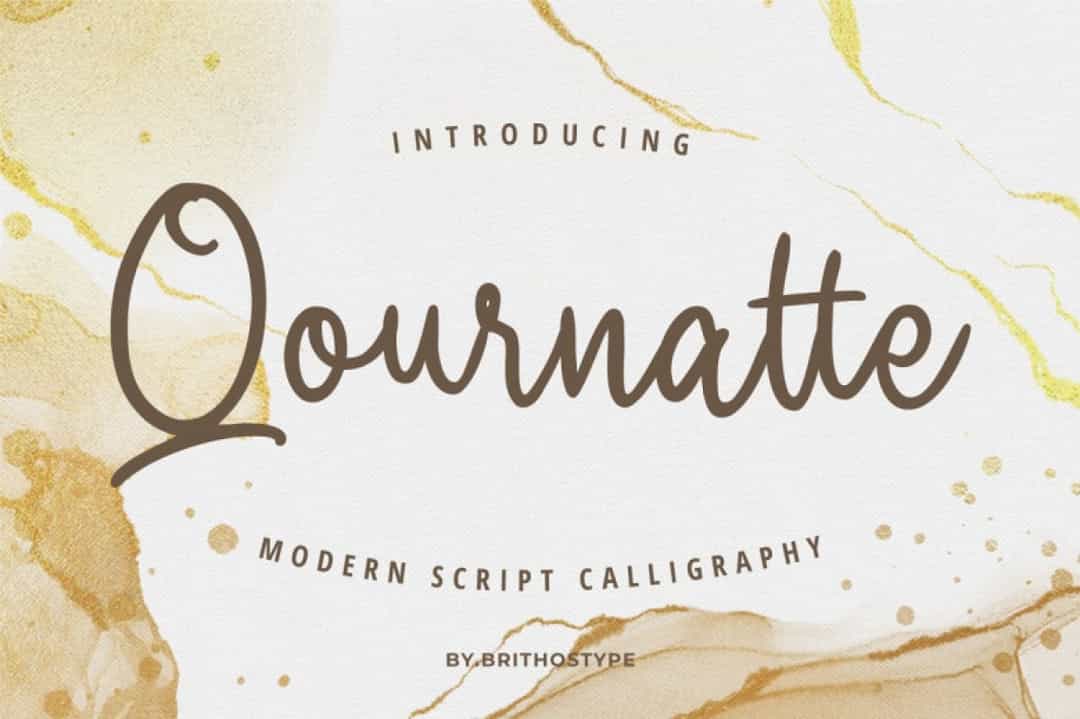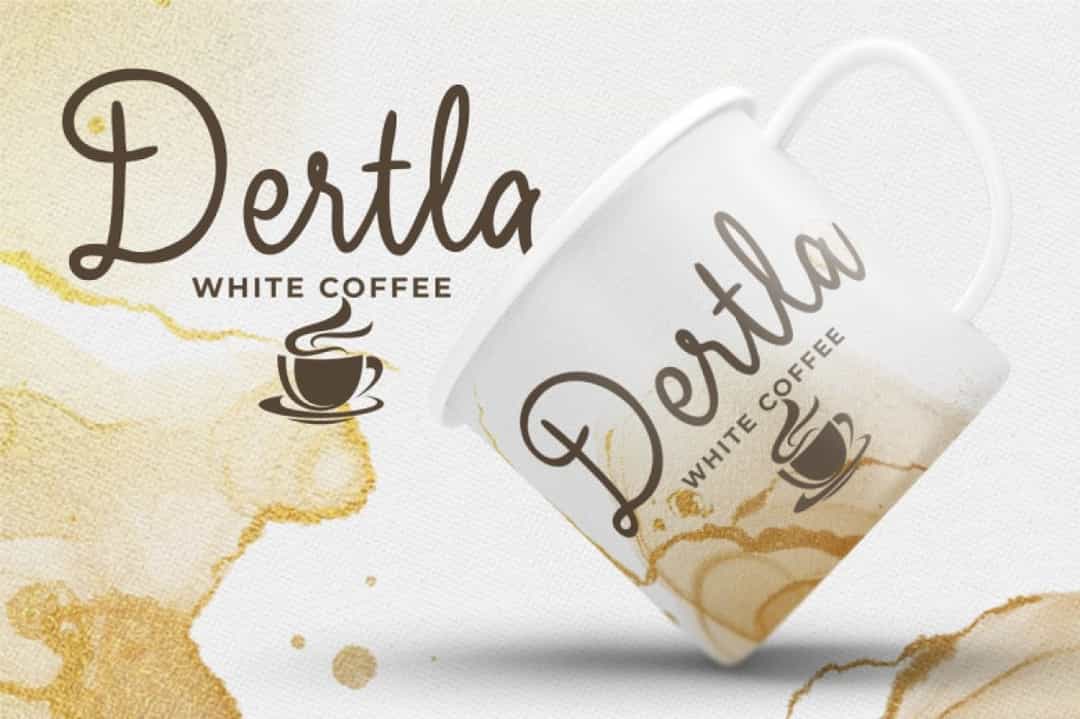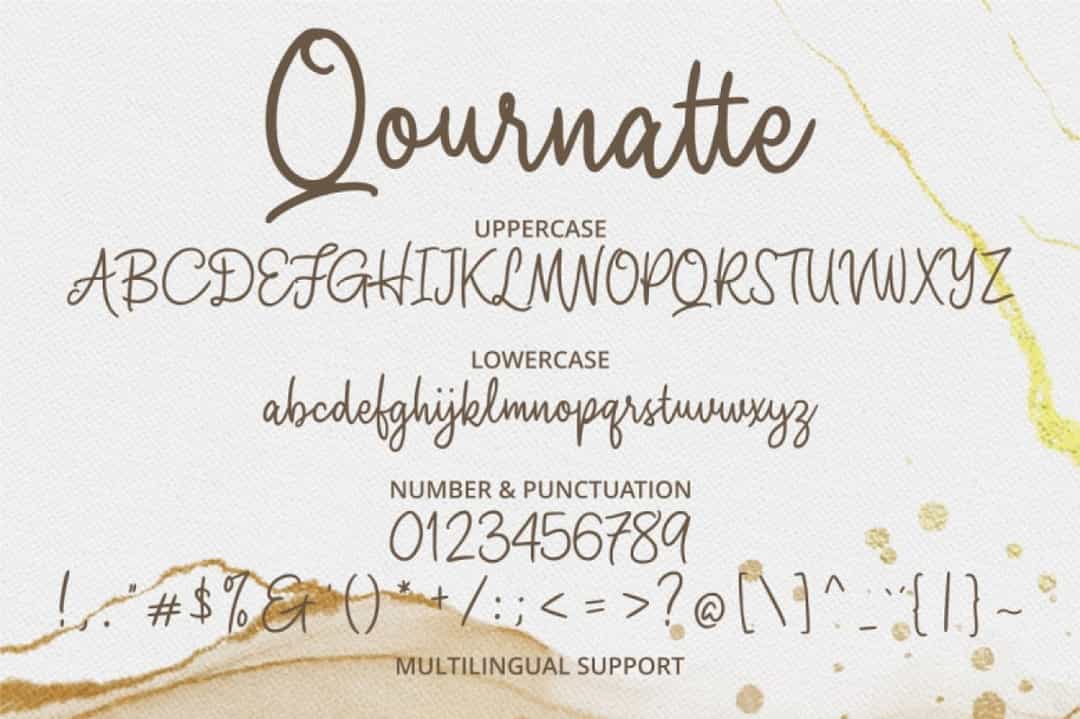
Qournatte is a beautiful handwritten font that doesn’t slow down the writing speed or making it difficult to sign, therefore it is suitable for logo brands, product packaging, magazines, web design, posters, banners, ads and titles among other uses.